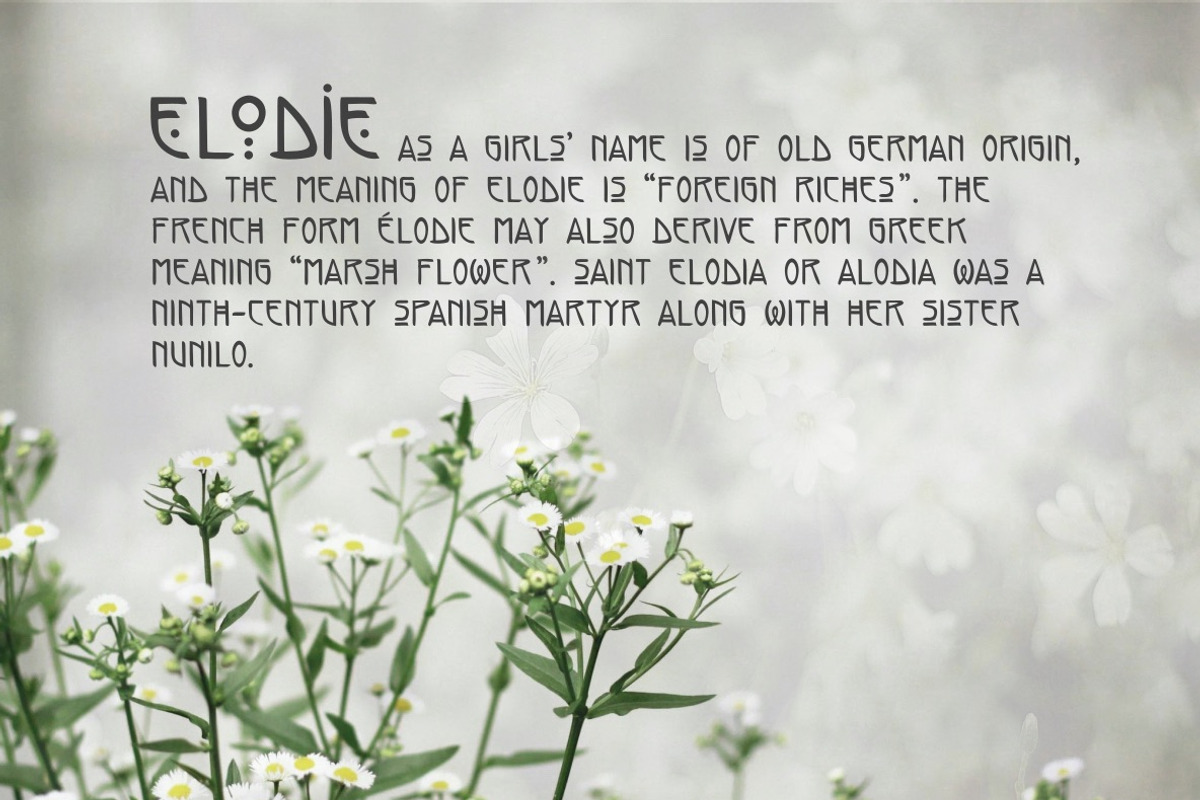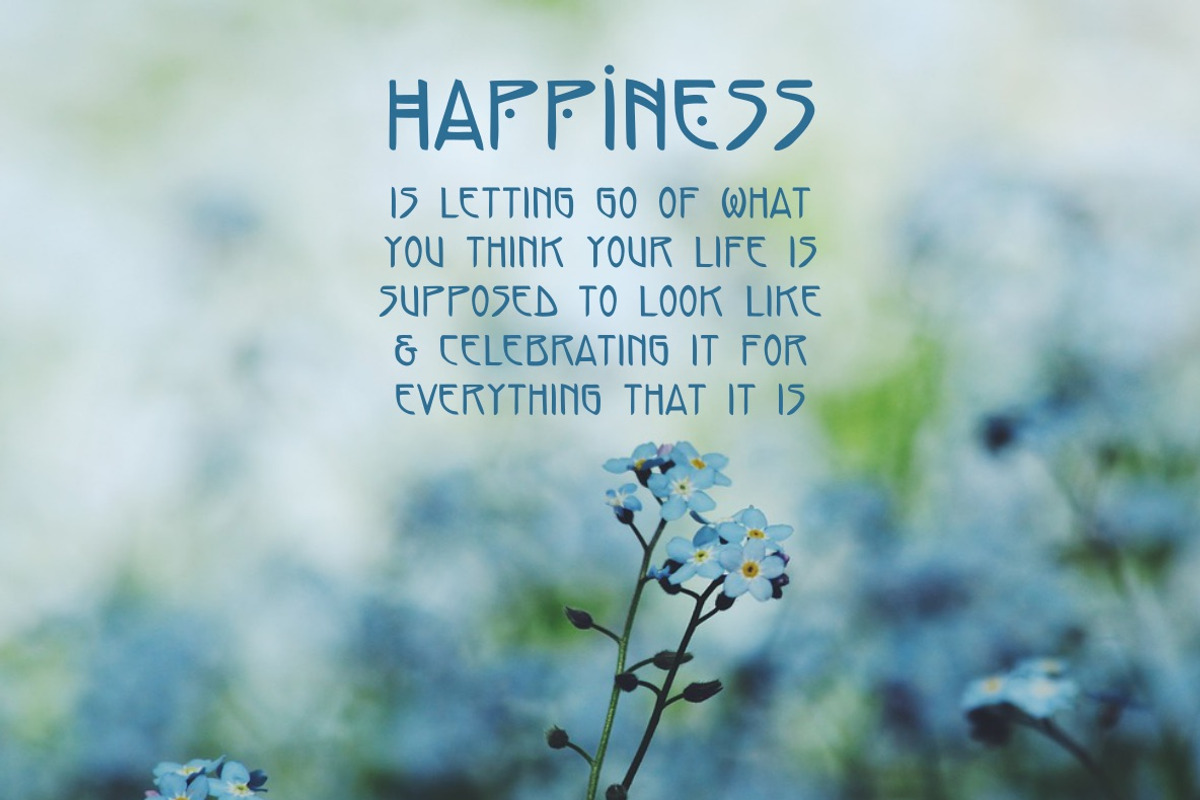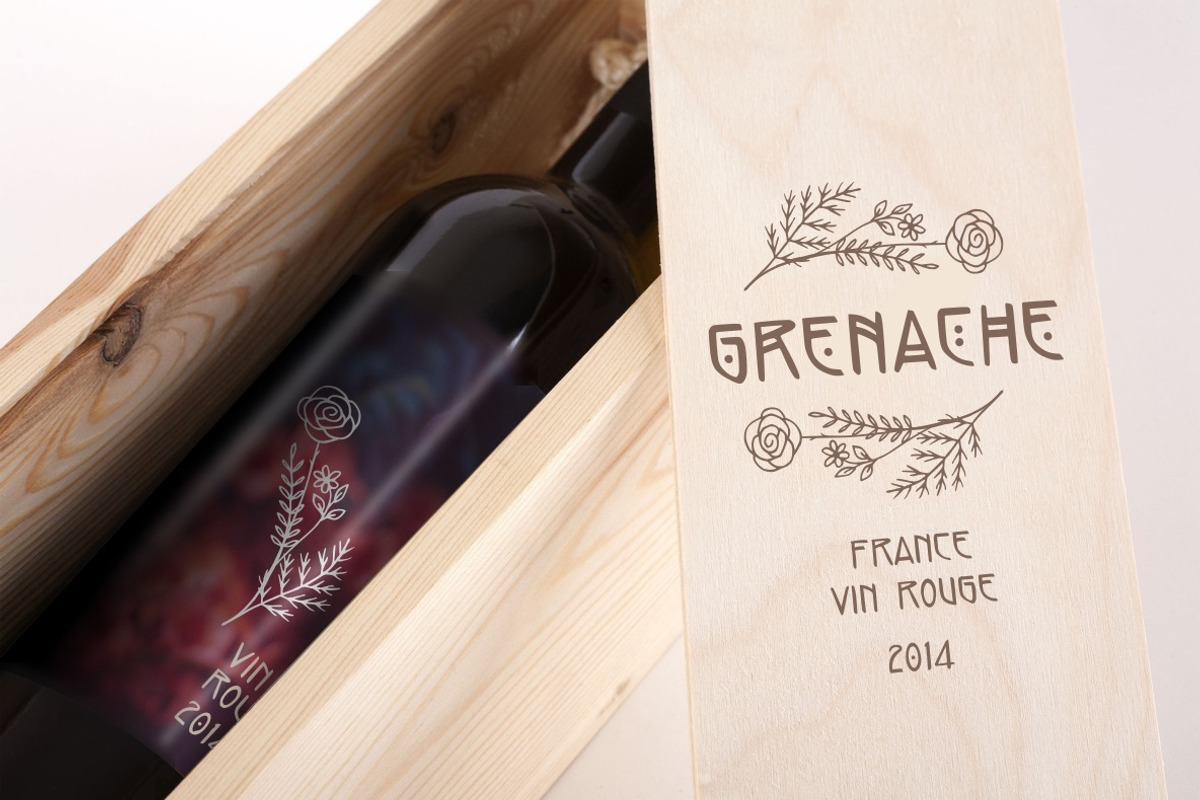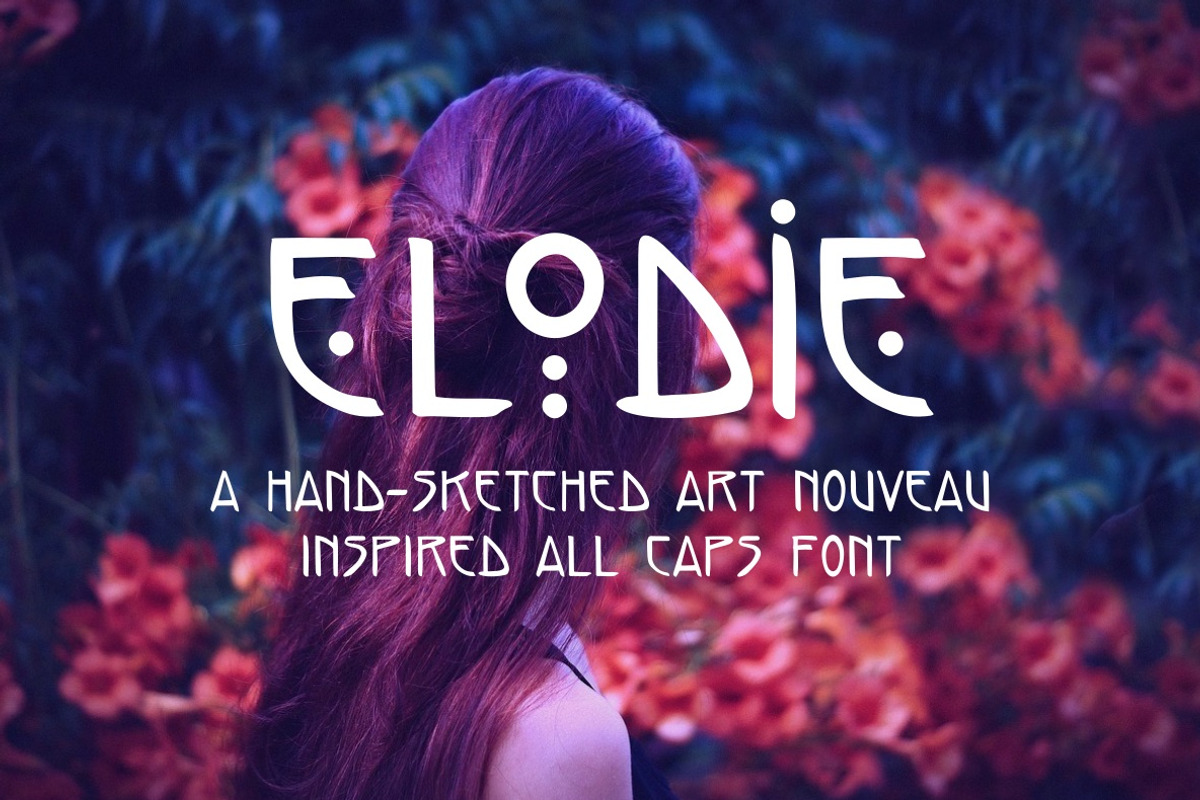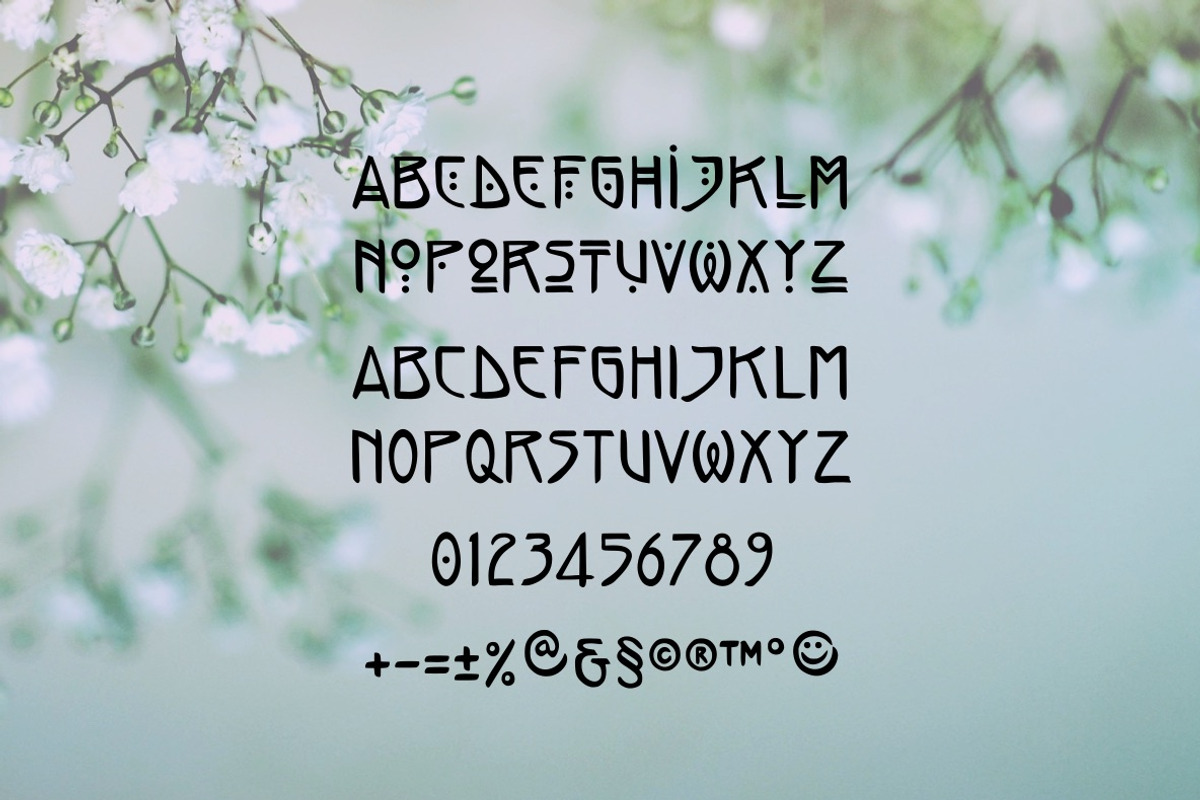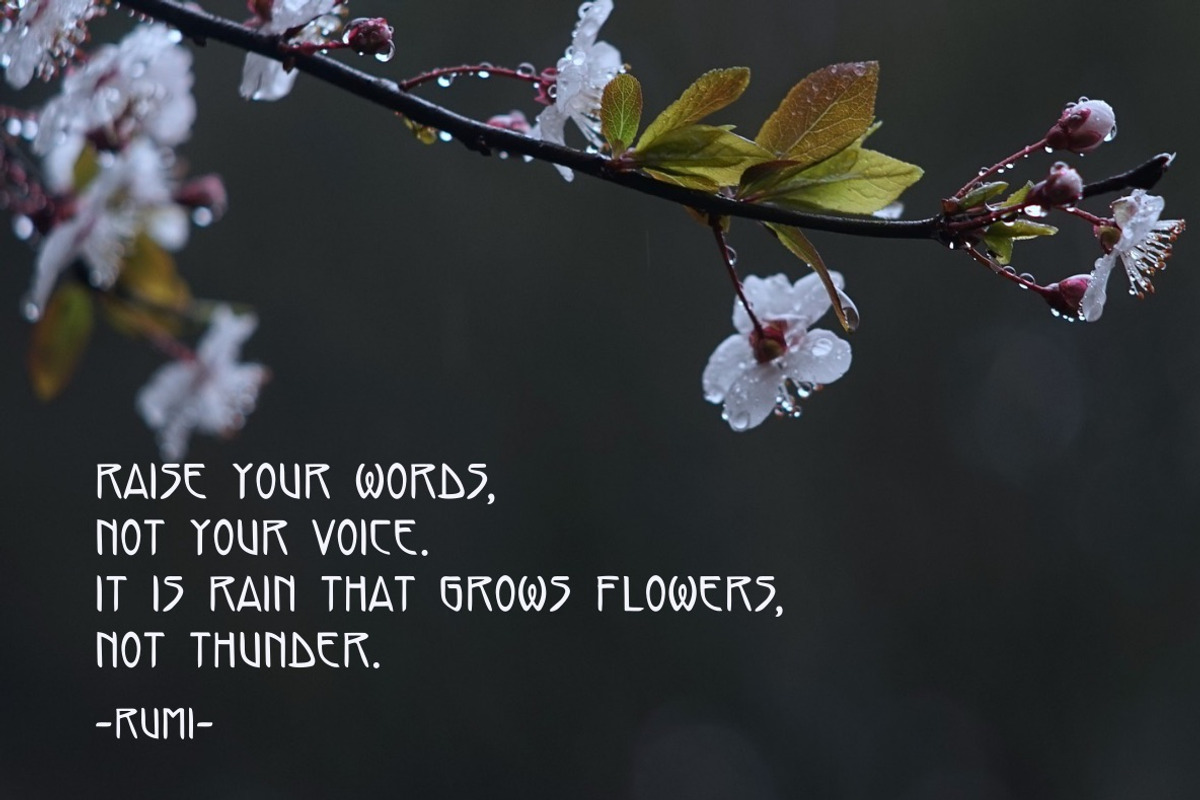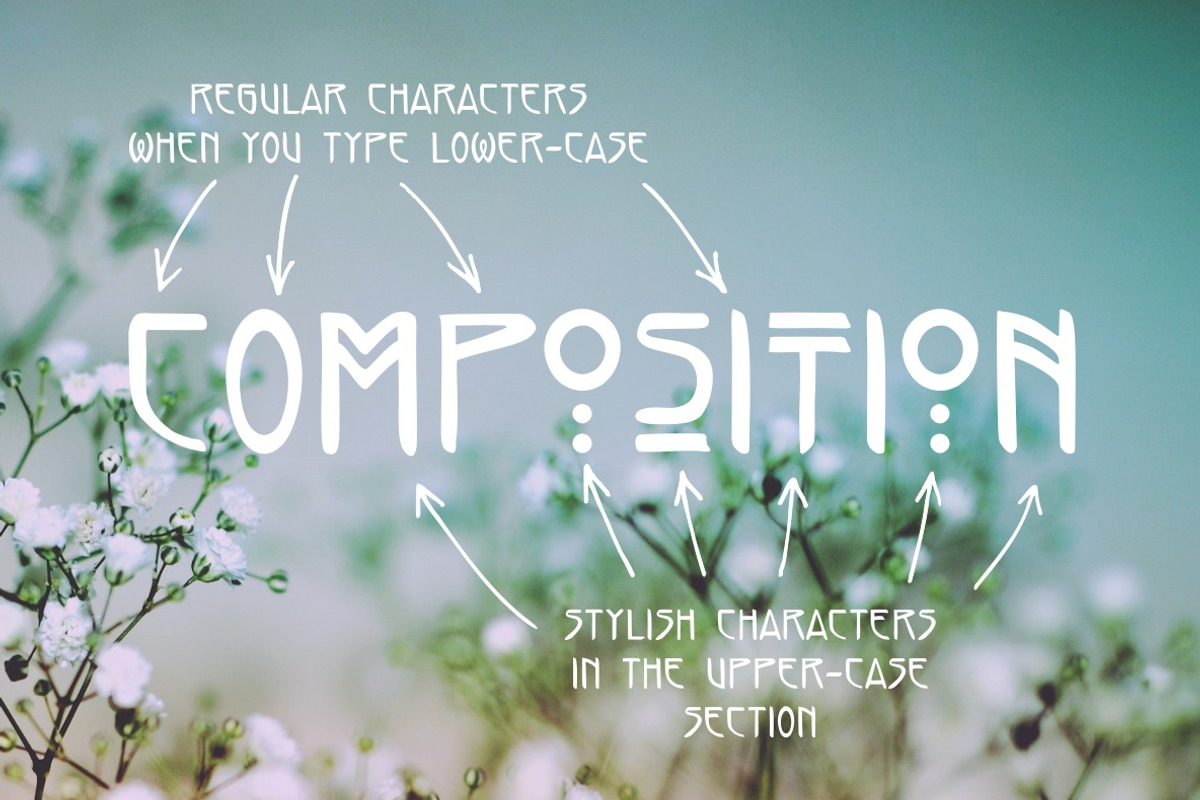
Elodie - Hand Made Art Nouveau Font
Elodie is an all caps font with some extra quirky characters. It was hand drawn with a brush pen.
Elodie is designed for titles, short quotes, product names etc. Use lower-case letters for regular text, and then add a some special quirks to your writing by using the characters in the upper-case section - don't over-do it though (unless you really want to).